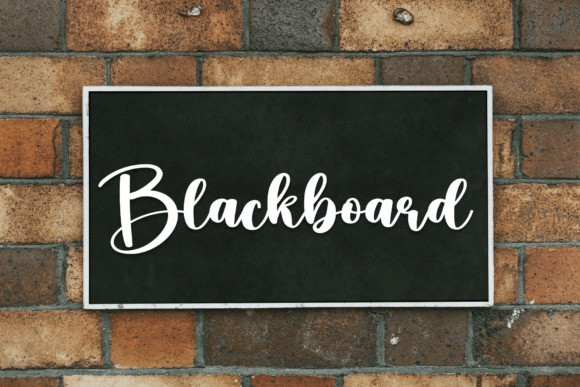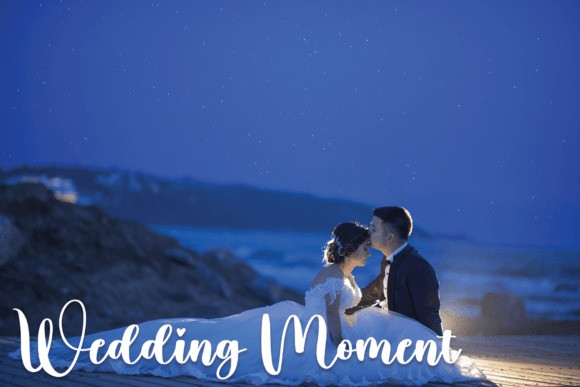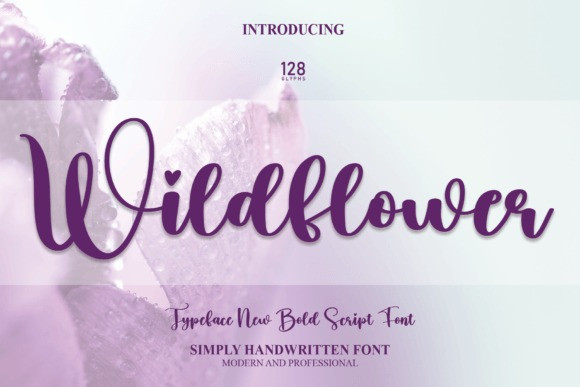
Wildflower Script Typeface
Wildflower Script Typeface, perfect for wall displays, wedding invitations, social media post logos, advertisements, product packaging, product designs, labels, photography, watermarks, invitations, stationery, and any project that requires a handwritten taste.